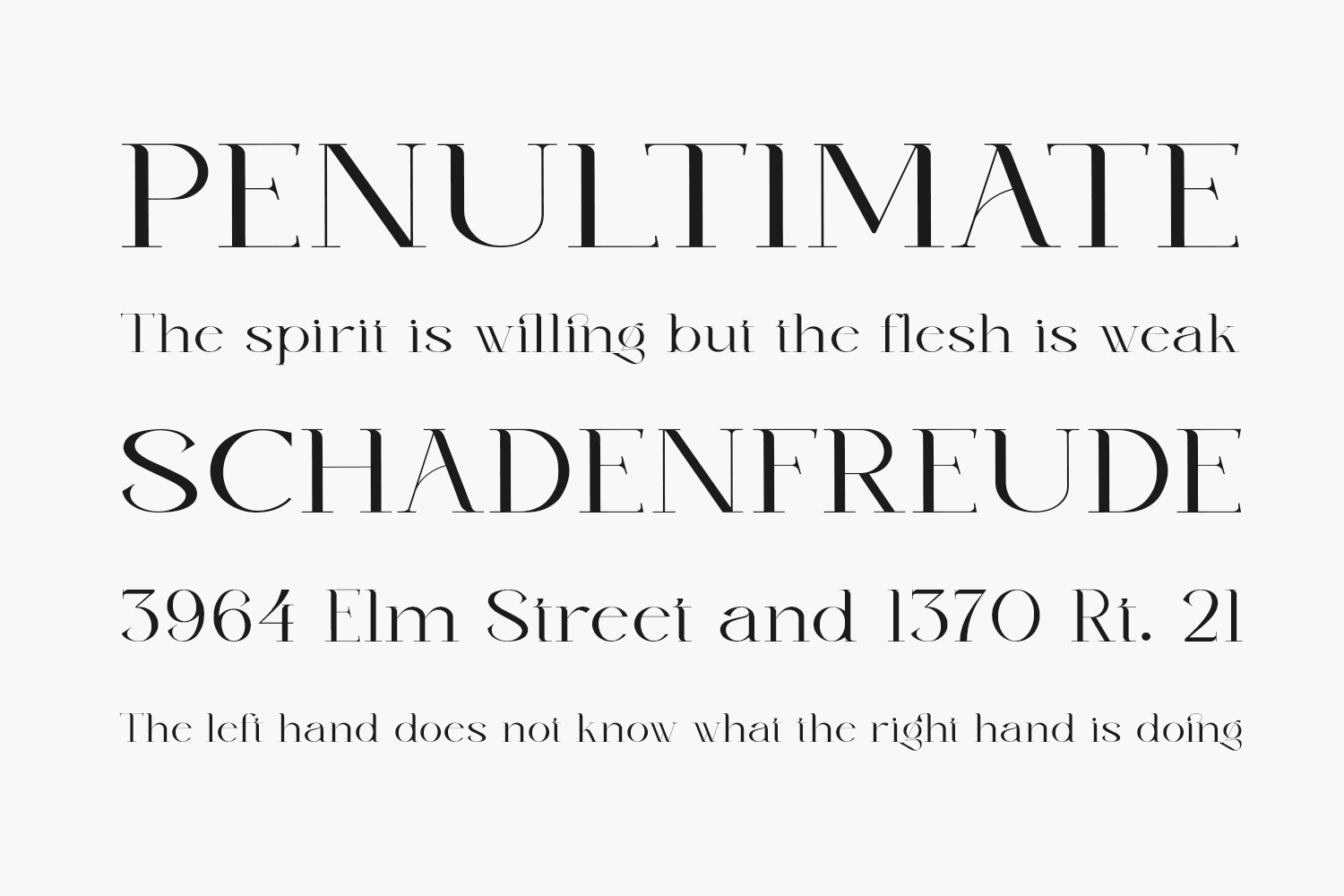
Introducing Qairo Free Font – a sophisticated and contemporary serif font crafted with numerous ligatures and font substitution options. Empowering users to effortlessly create unique letter variations and designs. Perfectly suited for a wide array of applications, such as brand identity, invitations, magazines, logo designs, and more. Qairo Free Font is free for personal use only. Please purchase the full version for commercial use.